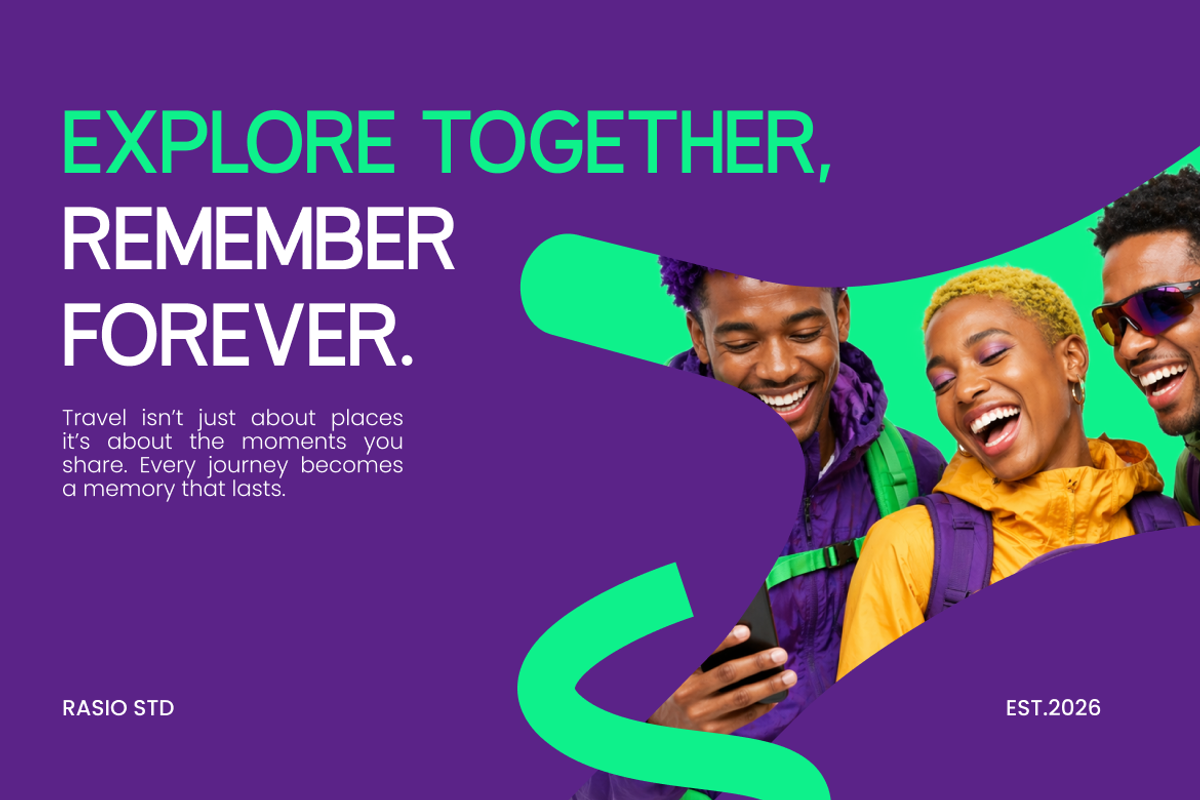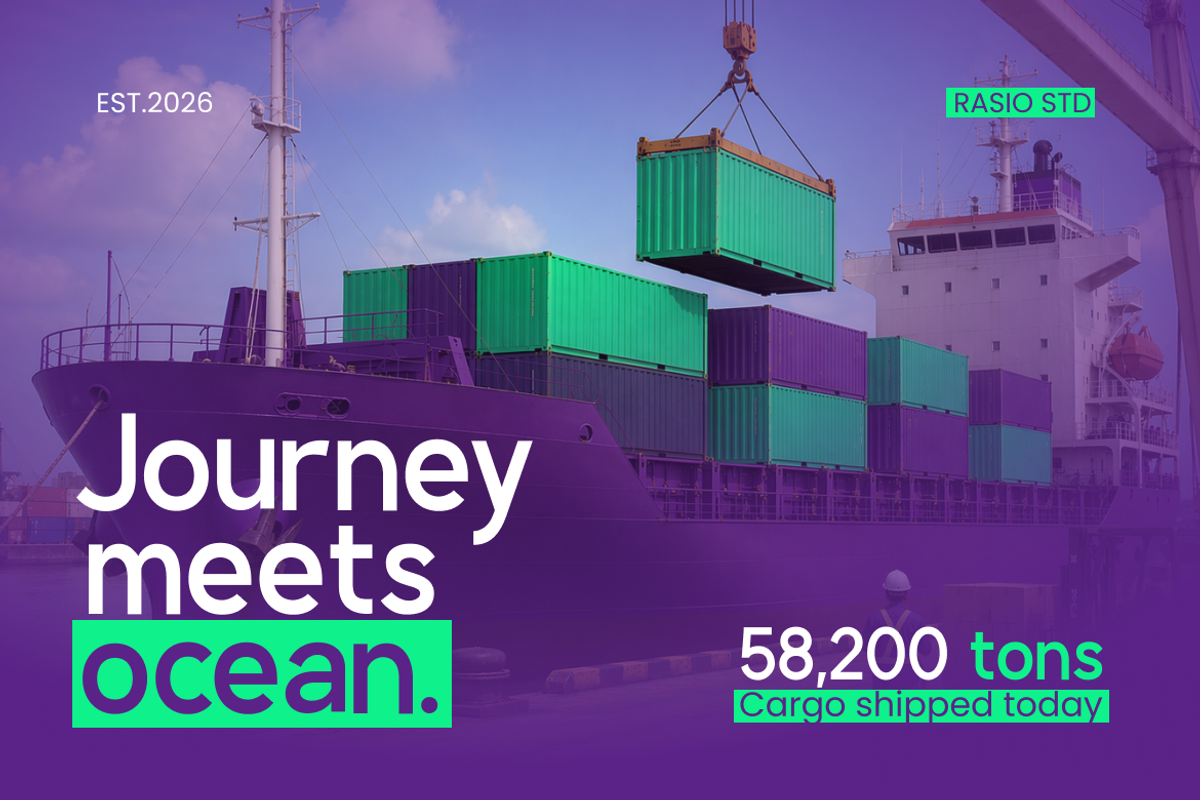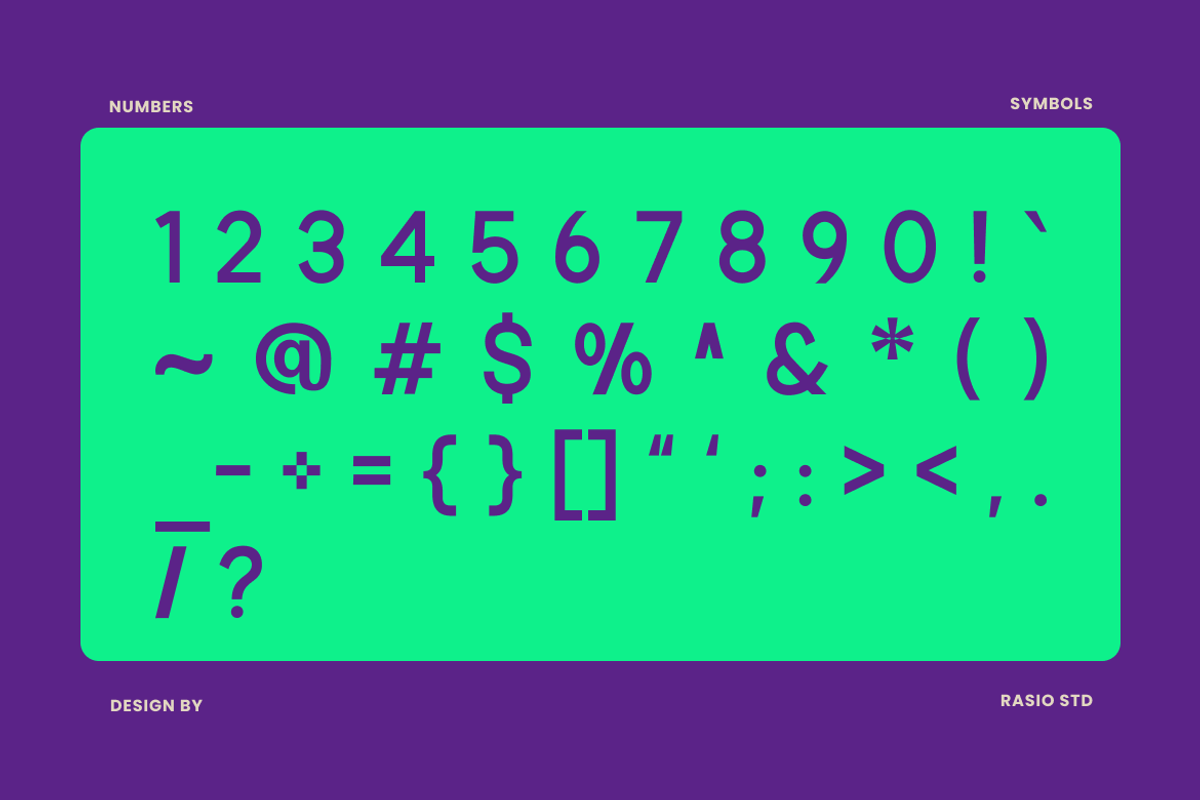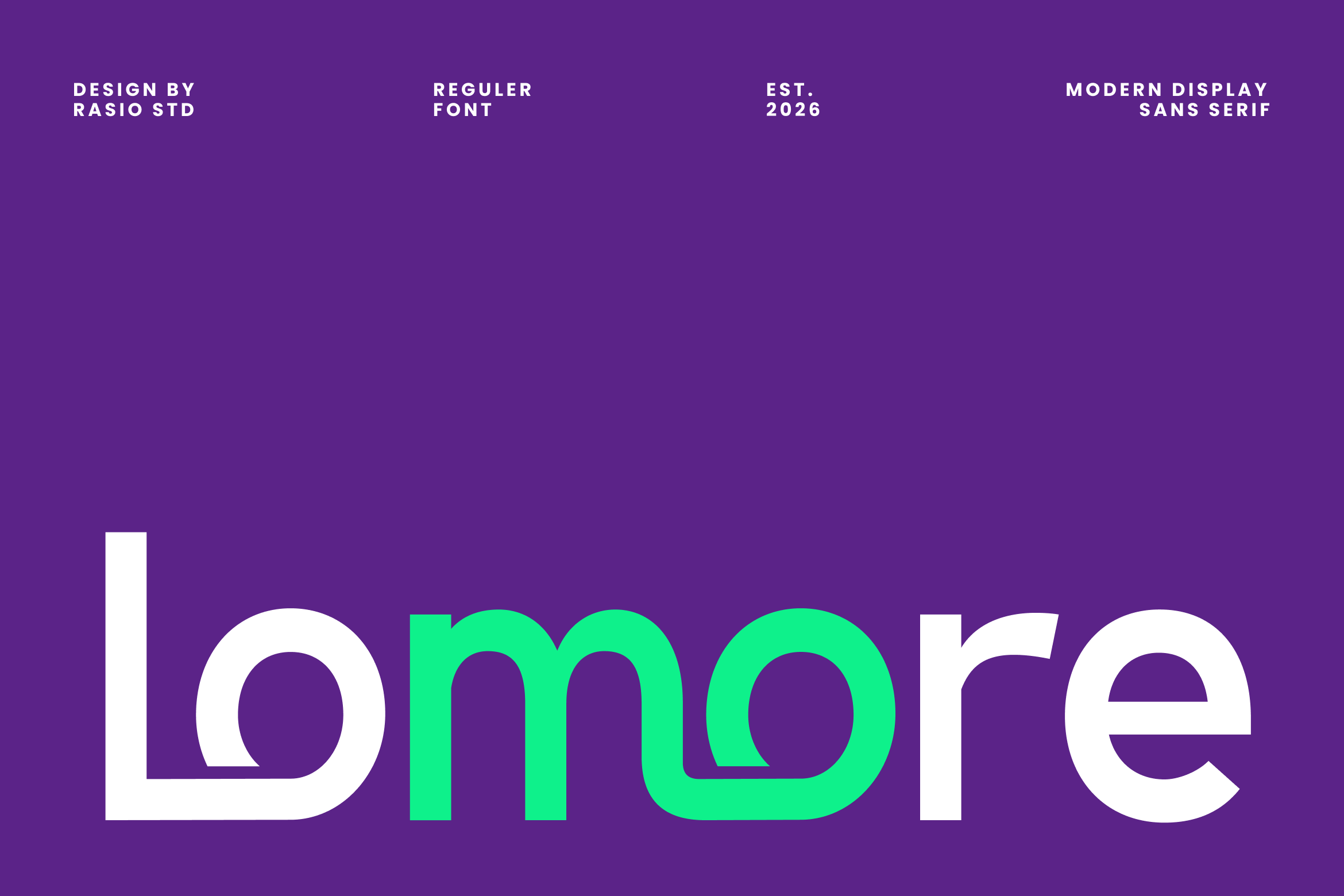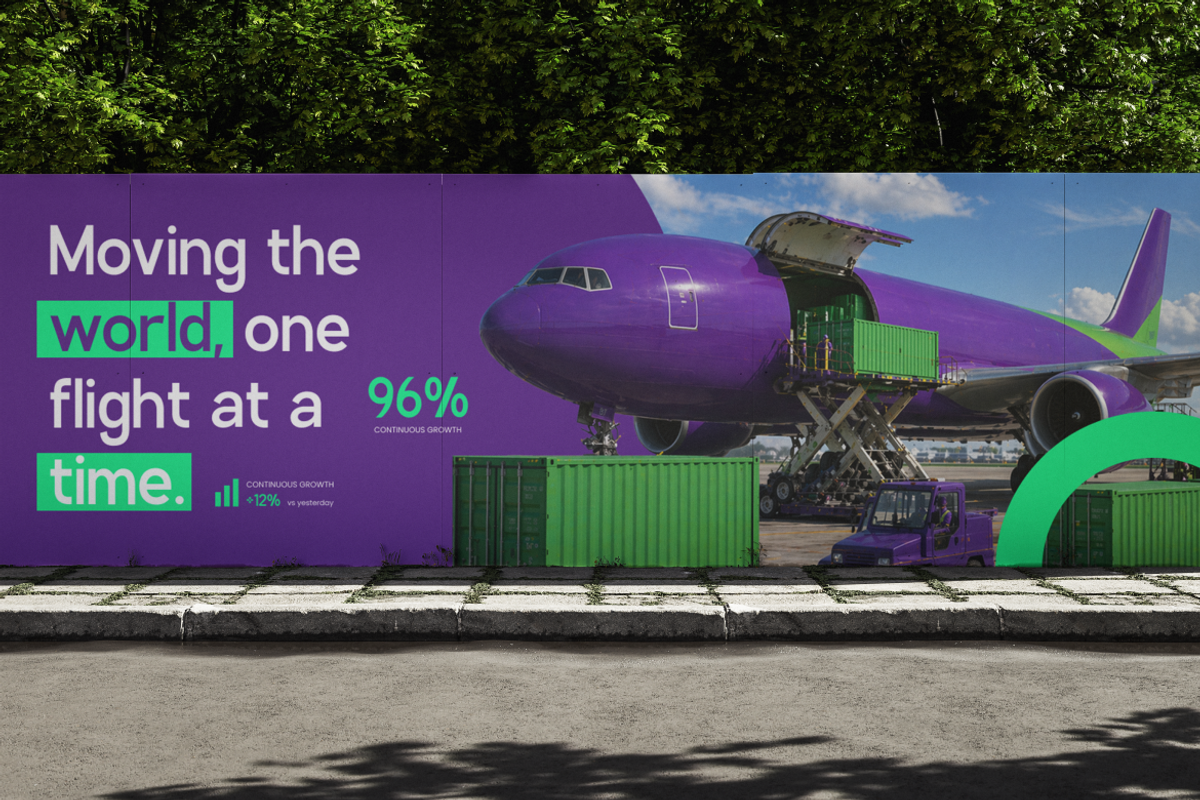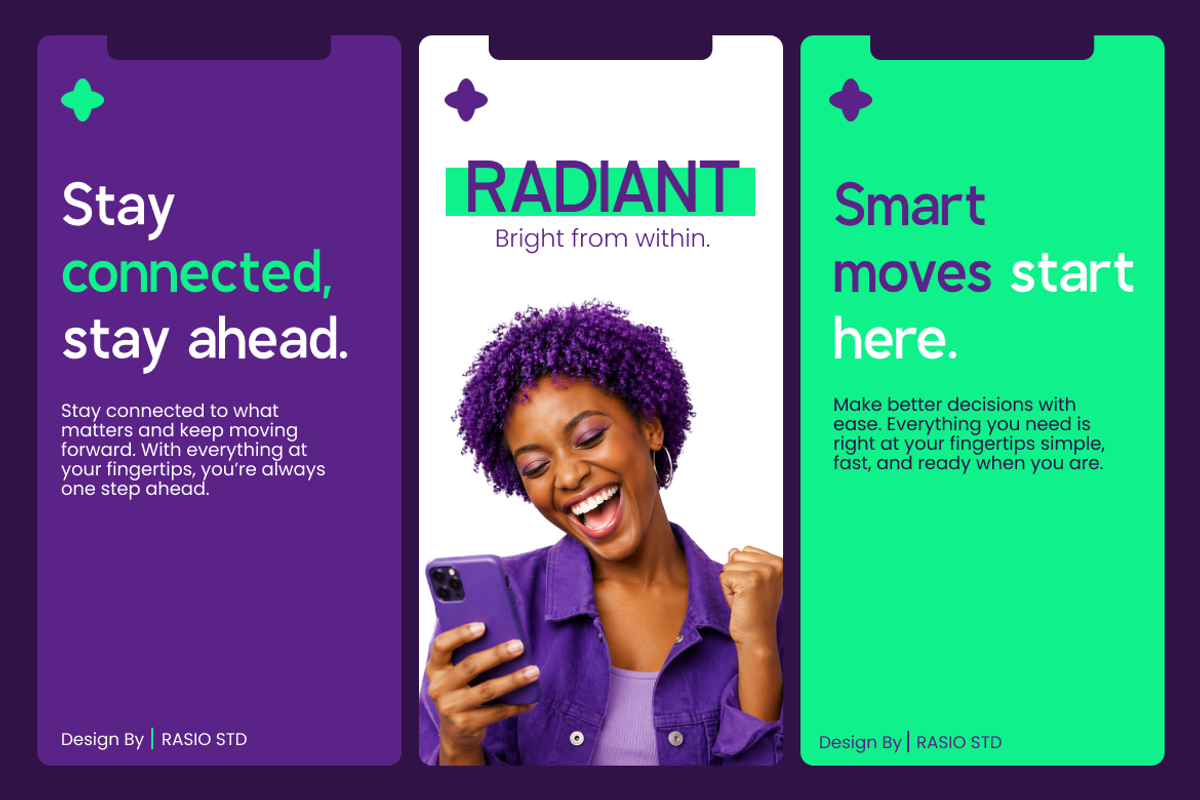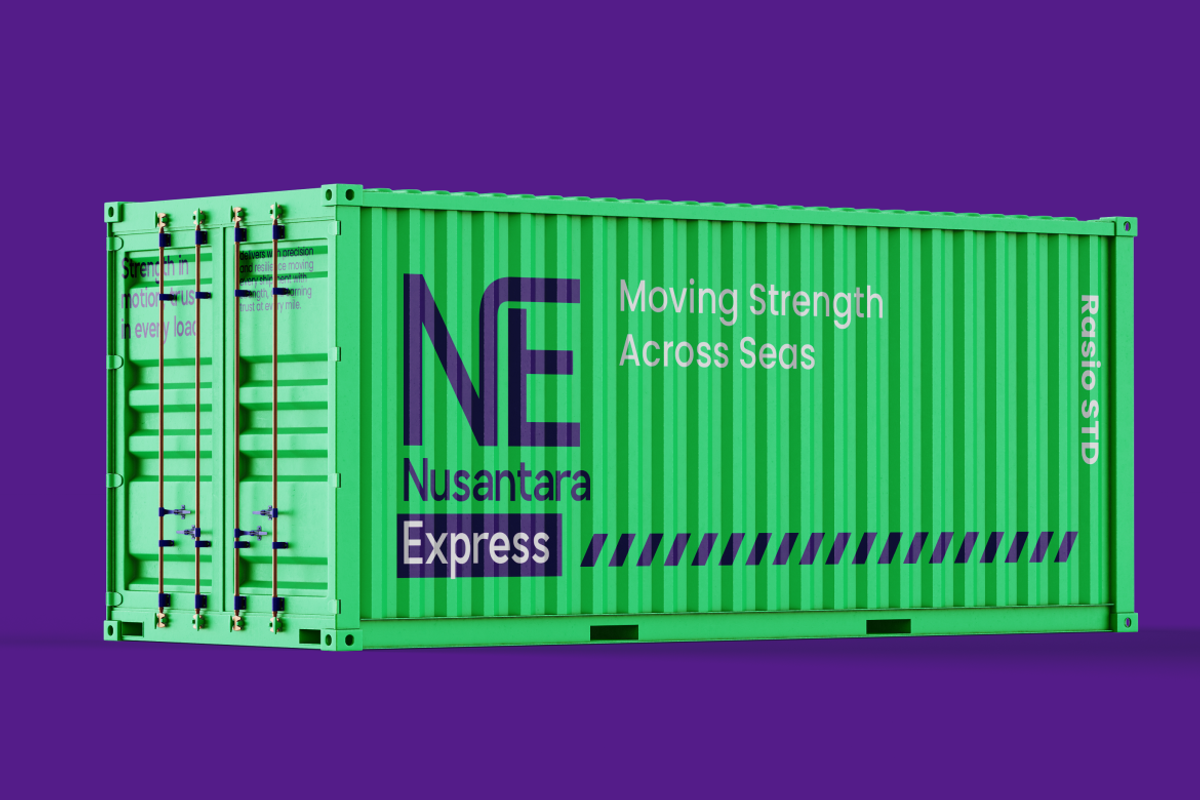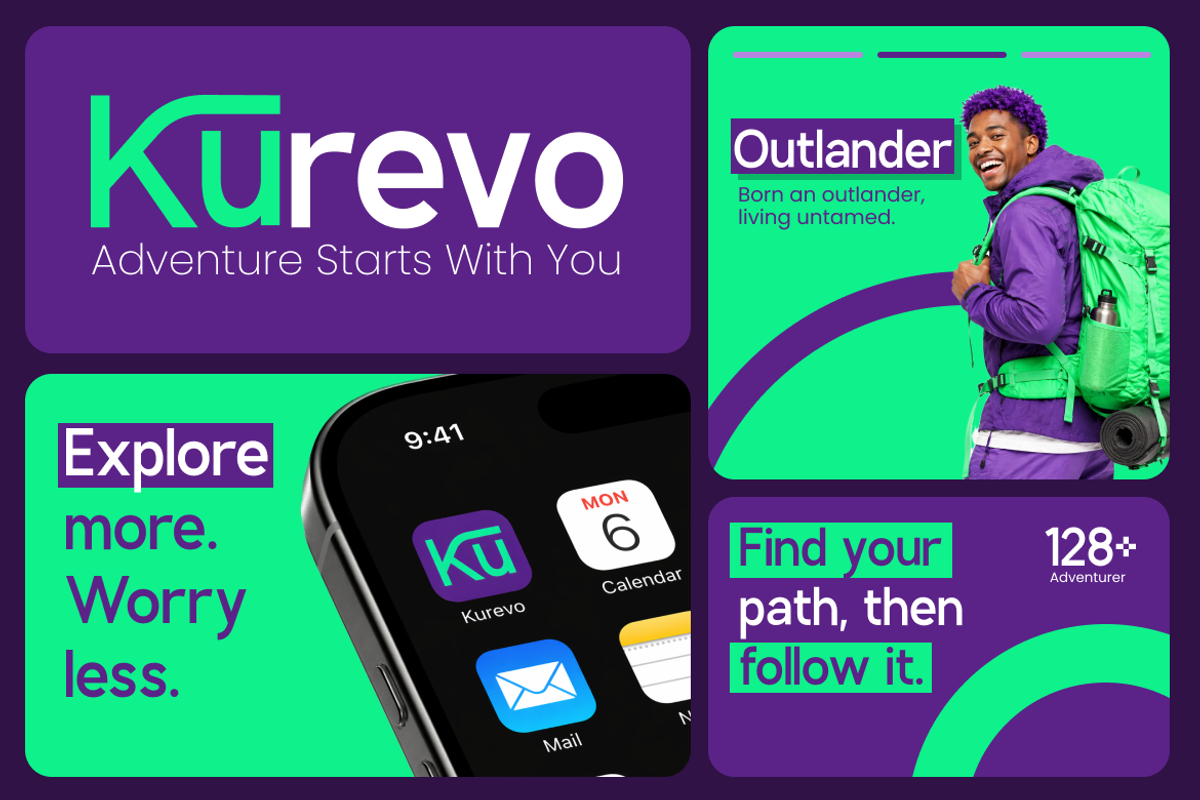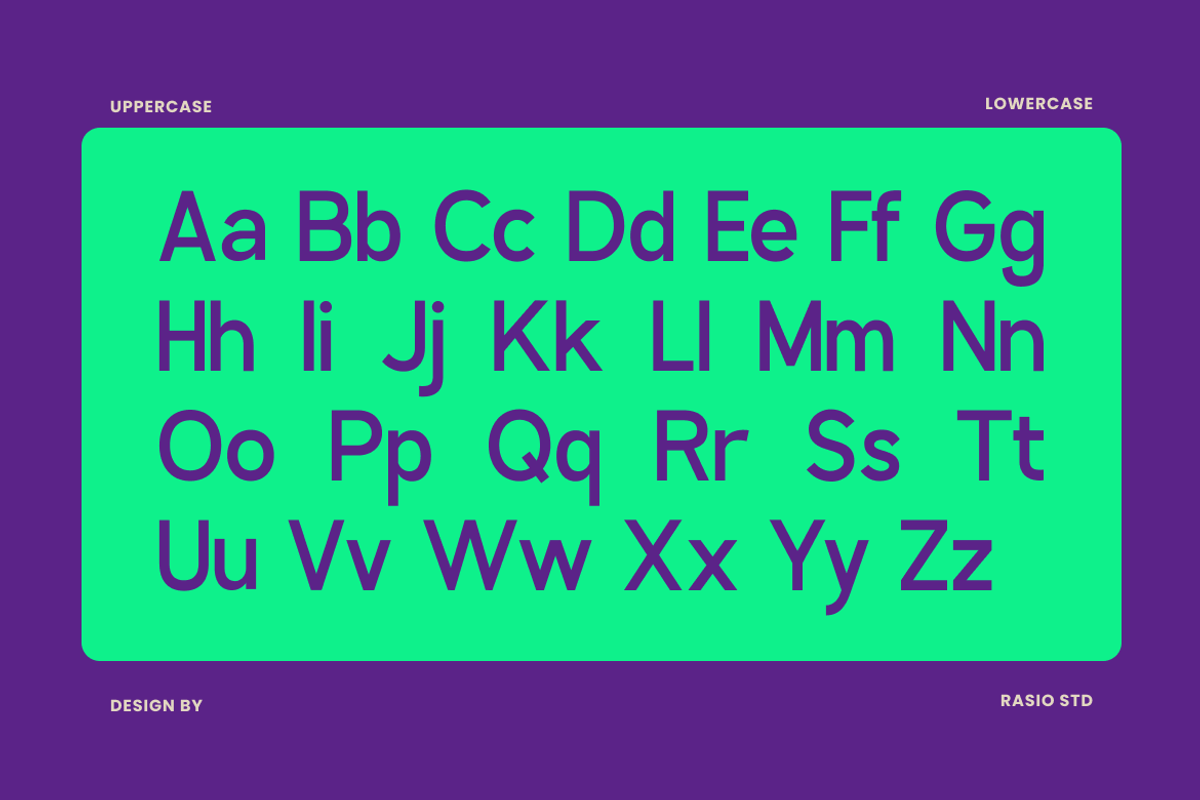
Lomore Modern Display Sans Font
Lomore Modern Display Sans Serif presents bold geometric construction with rounded terminals, smooth curves, and futuristic minimal proportions for contemporary visual communication. The typeface includes uppercase, lowercase, numerals, punctuation, and clean stylistic consistency suited for impactful branding and digital interfaces. Its modern sans serif personality balances soft sophistication with tech-inspired precision, making it effective for logo systems, UI design, editorial layouts, and forward-thinking brand identities.
Relevance and Use Cases is perfect for tech startups, app interfaces, futuristic branding, software products, digital campaigns, corporate identities, editorial layouts, sports branding, product packaging, UI/UX systems, social media graphics, and modern logo projects requiring bold geometric sans serif aesthetics. Crafted for creators seeking clean modern typography with bold display presence and versatile professional performance.
- Contemporary geometric sans with rounded futuristic letterforms
- Monoline structure with smooth curves and balanced proportions
- Bold display presence with clean minimal construction
- Soft techno-inspired terminals for modern digital aesthetics
- Strong readability for branding, interfaces, and headline compositions
- Technology branding and startup identity systems with bold modern character
- UI/UX design templates for apps, dashboards, and futuristic digital products
- Editorial layouts, posters, and headlines requiring clean geometric impact
- Product packaging and logo design with sleek contemporary aesthetics
- Social media templates and marketing kits for modern lifestyle and tech campaigns